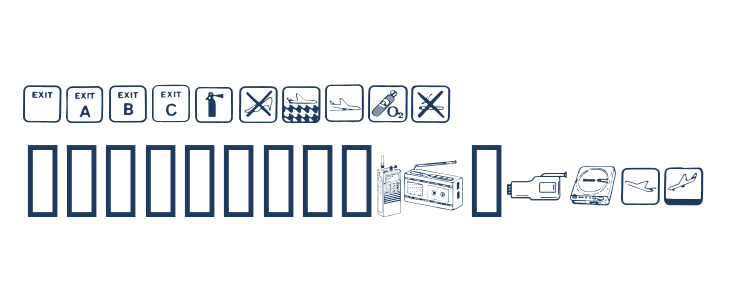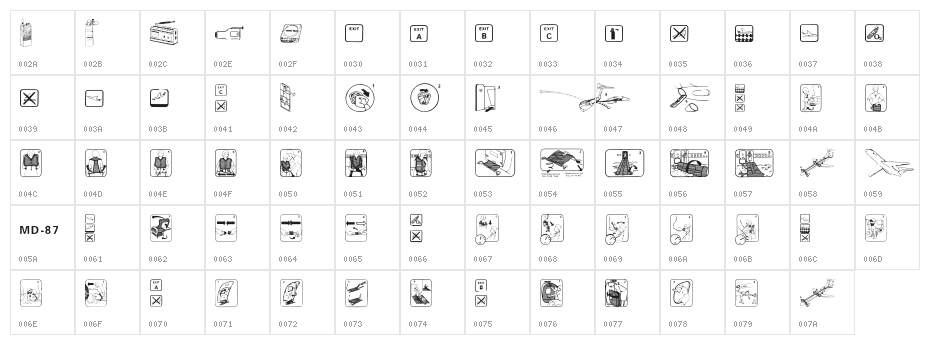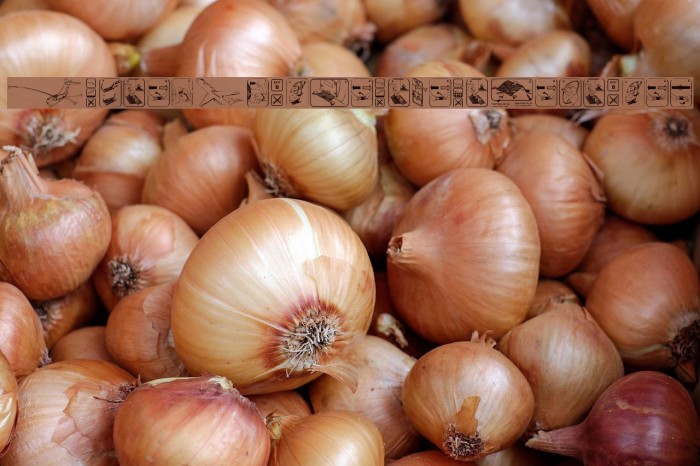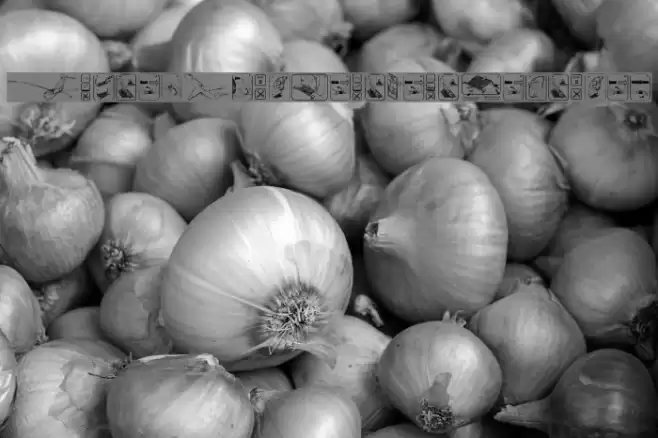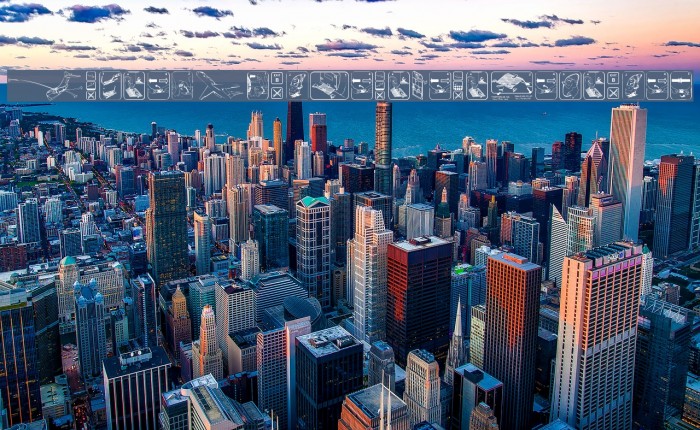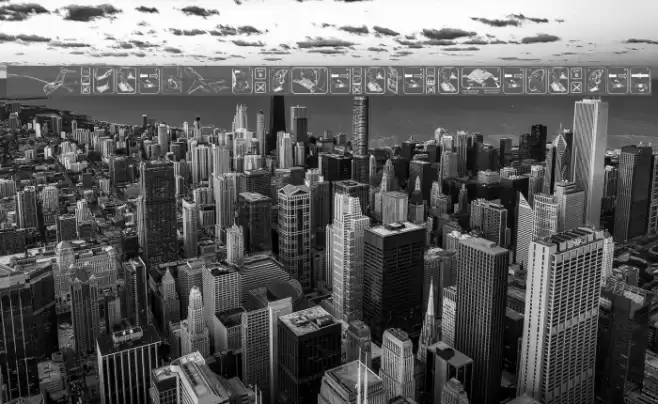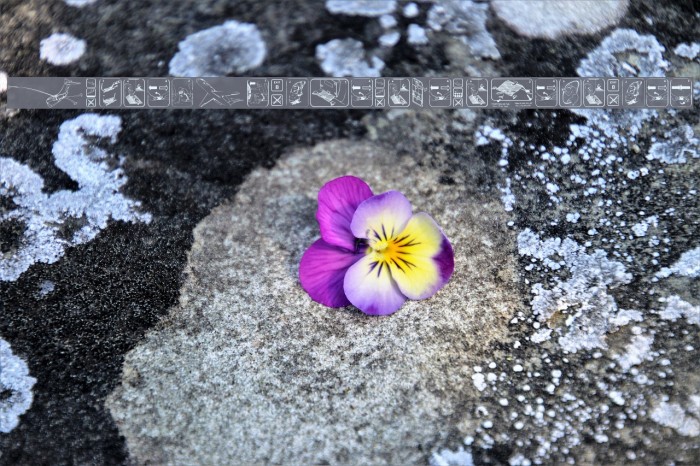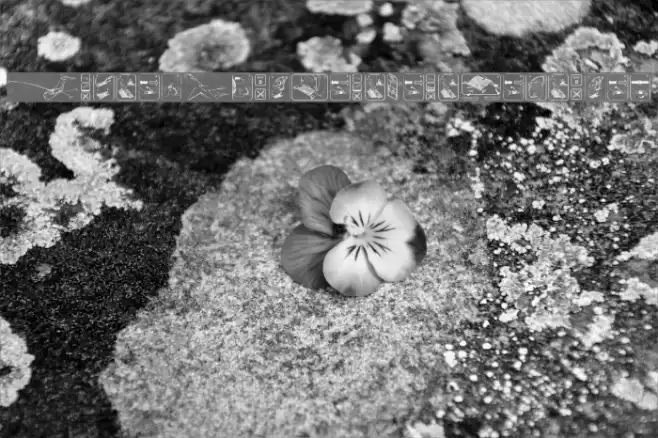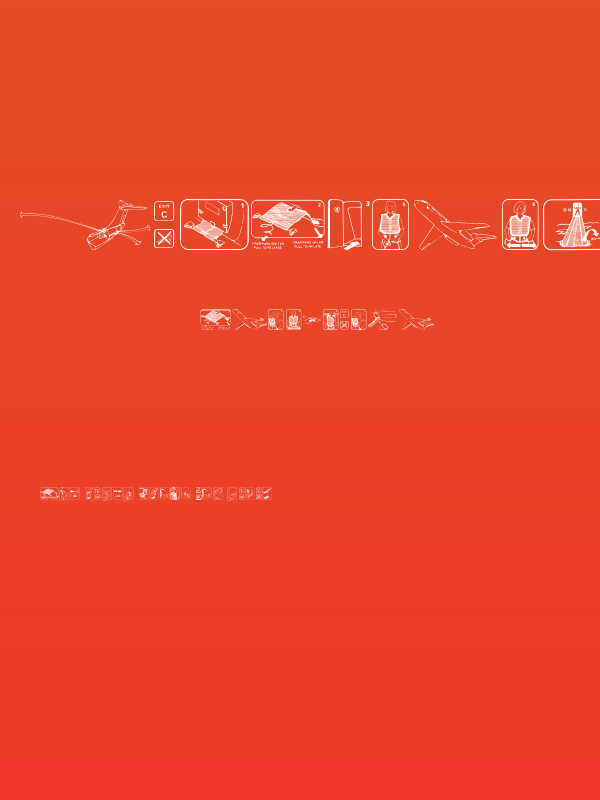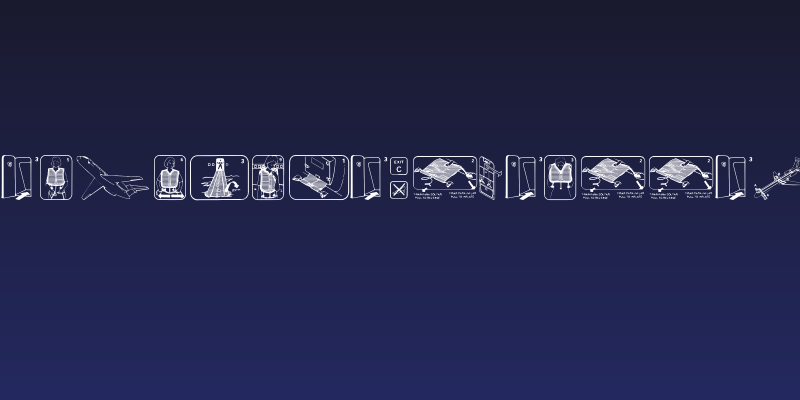
FastenYourSeatBeltTextured Font
FastenYourSeatBeltTextured Description
A pictogram-based font featuring detailed, instructional-style illustrations commonly found in airline safety cards, with a focus on clear, universally understandable visuals and minimal text. The set includes uppercase and lowercase letters, numbers, and a variety of symbols, all rendered in a consistent line-art style with rounded rectangular borders.
| Overall Style | Instructional, Modern, Decorative |
| Use Case | Infographics, Signage, Educational materials, Themed posters |
| Proposed Projects | Airline safety materials, instructional guides, infographics, emergency procedure signage, educational posters. |